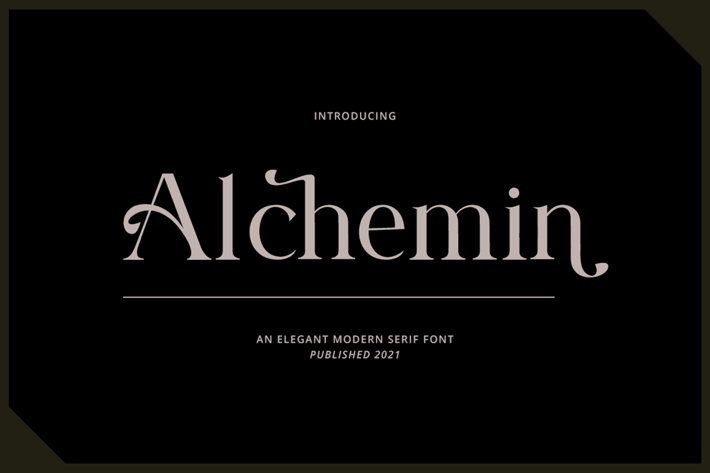
Alchemin - Advertisement Font
Alchemin is an elegant and authentic serif font. No matter the topic, this font will be an incredible asset to your fonts’ library, as it has the potential to elevate any creation.